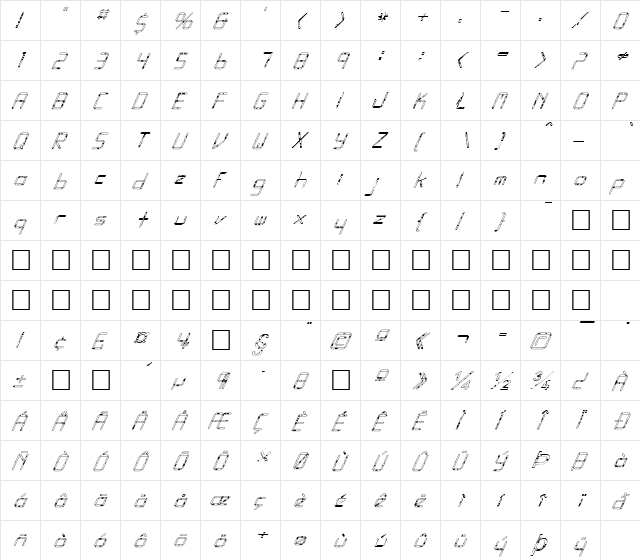
FZ DIGITAL 10 SPOTTED ITALIC Normal
Design Context for FZ DIGITAL 10 SPOTTED ITALIC Typeface
FZ DIGITAL 10 SPOTTED ITALIC has a distinctly futuristic character, with geometric precision and clean angles that feel at home in technology, gaming, and sci-fi contexts. The slanted form adds forward momentum and visual energy.